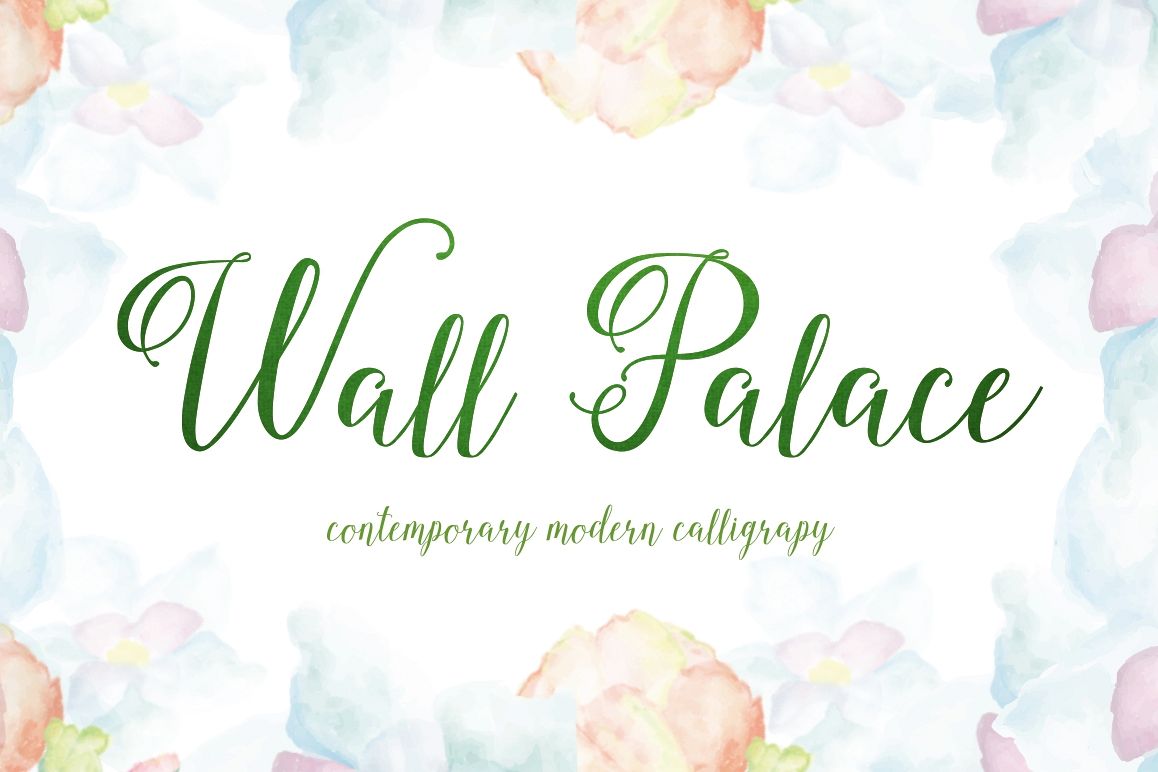
Wallpalace Script example image 1
Wallpalace Script
Wallpalace Script with style Soft, emotional, lyrics, even passionate calligraphic typeface konteporel to create unlimited creativity. His appearance was influenced by the look of writing with a steel pen I wrote myself irregularly but memorable experience, a tool that can push and pull, and which produces Fine rude when pressure upon it is varied. Smooth, sophisticated Wallpalace Script drawn and redrawn and the connection of letters refined to make an appearance handwriting correctly..Wallpalace Script.